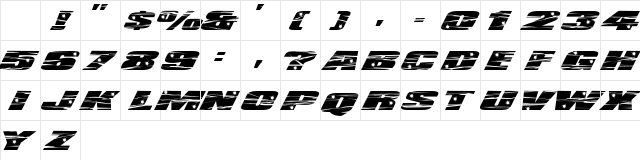
LHFActionMovie Regular
Design Context for LHFActionMovie
LHFActionMovie is a composed and adaptable typeface that performs quietly and consistently across a wide range of design contexts.